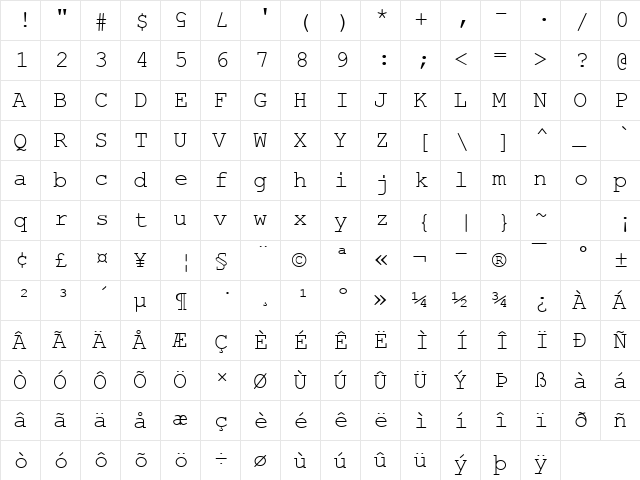
Arabic+ Courier Regular
Design Context for Arabic+ Courier Typeface
Arabic+ Courier uses fixed-width spacing throughout, giving it the structured, systematic character associated with coding environments and technical documentation.
Well-suited to data-driven dashboards, coding tutorials, and any design that wants to reference the world of programming.
Pro Tip: Use Arabic+ Courier with slightly increased line-height for extended reading — fixed-width spacing can feel dense in longer passages without extra breathing room.